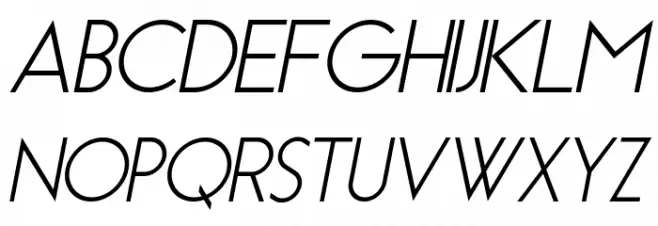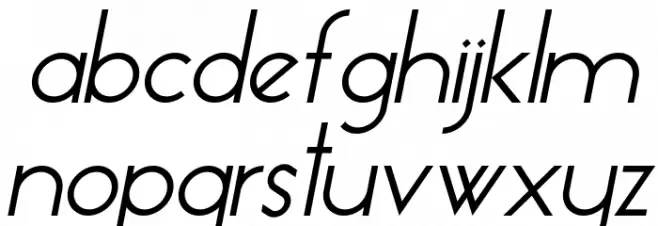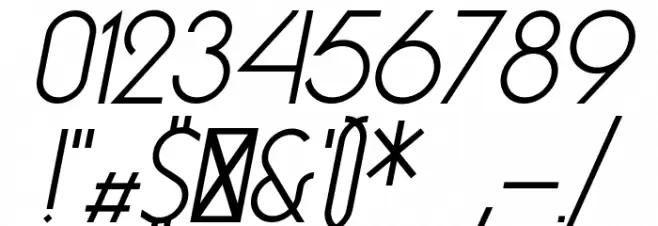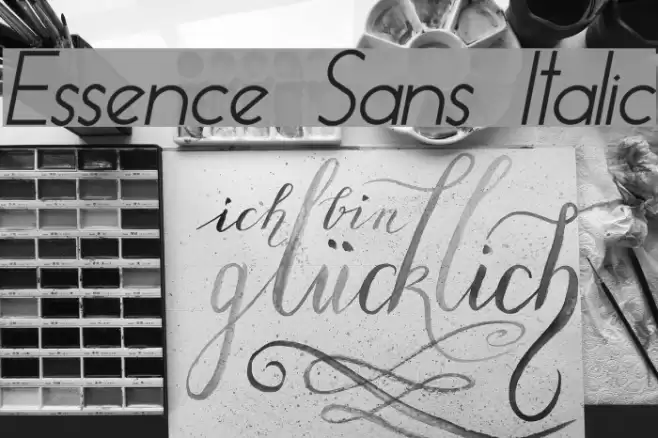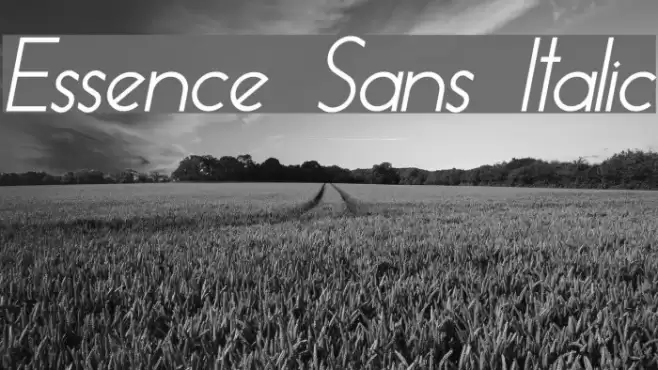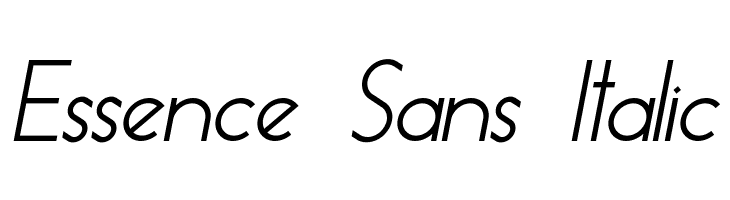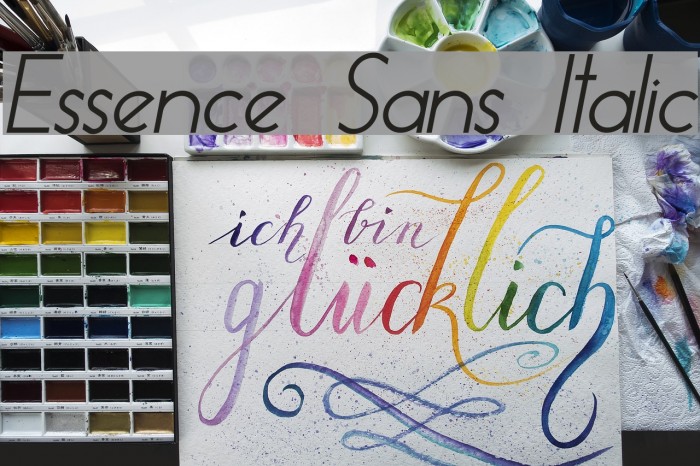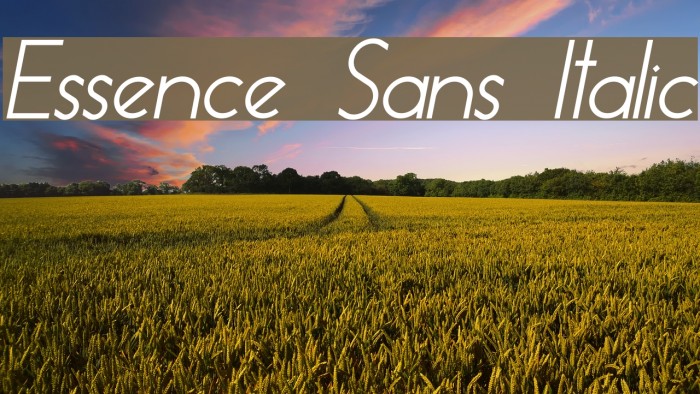
Essence Sans Italic
This font exhibits a sleek and modern sans-serif style with a distinct italic slant, giving it a dynamic and fluid appearance. The characters are clean and minimalistic, with smooth curves and a consistent stroke width that enhances readability. The uppercase letters are slightly taller than the lowercase, maintaining a harmonious balance. The numerals are clear and straightforward, matching the overall aesthetic. Special characters are well-integrated, maintaining the font's cohesive look. The font's design is versatile, suitable for a variety of applications where a contemporary and elegant touch is desired.
A modern, italic sans-serif font with clean lines and a dynamic slant.
- Proposed Projects: Ideal for branding, editorial design, advertising, and digital interfaces.